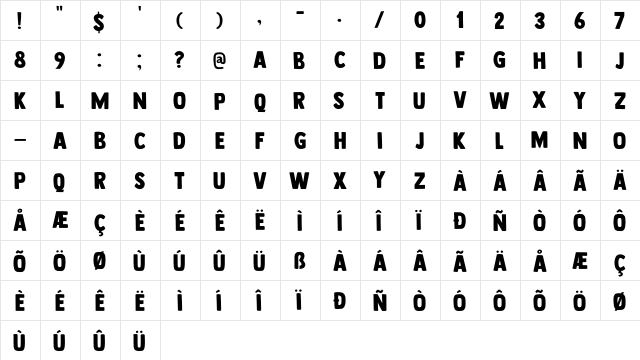
DK Longreach Regular
| Foundry | David Kerkhoff |
| Designer | David Kerkhoff |
Design Context for DK Longreach Typeface
DK Longreach offers clean, dependable letterforms without strong stylistic allegiance, making it a practical choice for designers who need flexibility.